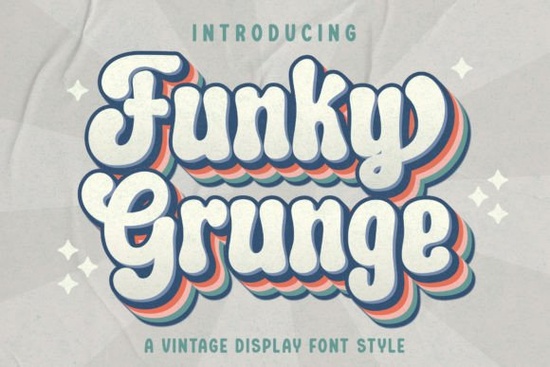
If you've been searching for a typeface that brings gritty, retro character to your projects, Funky Grunge Font is worth a close look. It's a vintage-style display font designed to give your work that worn, textured feel without any extra editing. Whether you're building a brand identity, designing a poster, or creating social media graphics, this font delivers personality right out of the box.
Below, I'll walk you through what makes this font useful, where it works best, and how to pair it with other typefaces for a polished result.
What Makes Funky Grunge a Good Display Font?
Display fonts are meant to grab attention, and Funky Grunge does that through texture and style. The letters have a slightly distressed, uneven look that mimics old printing or hand-painted signage. This gives designs an authentic vintage mood that clean, modern fonts simply can't replicate.
Here's what stands out about it:
- Retro character The grunge texture feels organic, not computer-generated.
- Versatile sizing It reads well at large sizes on posters and at medium sizes on packaging.
- Complete character set Includes uppercase, lowercase, numbers, and common punctuation.
- Works for digital and print Suitable for screen designs and physical products alike.
Where Can You Use This Font?
The retro grunge style fits a surprisingly wide range of projects. Designers and small business owners reach for fonts like this when they want to stand out from polished, corporate-looking type.
Common uses include:
- Logo design Especially for brands with an indie, streetwear, or handmade aesthetic.
- Social media posts Bold display type catches the eye in fast-scrolling feeds.
- Wedding invitations Pairs well with rustic, boho, or vintage-themed stationery.
- Print-on-demand products T-shirts, mugs, and posters benefit from textured typography.
- Event flyers and posters Concerts, markets, and pop-up events love a grungy headline.
- Packaging and labels Works nicely for craft beer, artisan goods, or specialty food brands.
If you create products on platforms like Redbubble, Merch by Amazon, or Etsy, a font like this can help your designs feel more handmade and distinctive.
How Does It Compare to Other Display Fonts?
There's no shortage of display fonts on Creative Fabrica, so how does Funky Grunge hold up? It fills a specific niche vintage grit that other styles don't cover. Here's how it compares to a few other popular options:
- Creative Vintage Font Shares the retro vibe but leans more toward classic elegance than raw texture.
- Real Wavy Stacked Font A bold, layered display font ideal for headlines that need height and drama.
- Selina Daniel Duo Font A pairing of serif and script styles, better suited for feminine or editorial layouts.
- Marshmellow Font A softer, rounded typeface with a playful feel the opposite of grunge.
- Rainbow Darling Duo Font Combines a fun display style with a complementary script, great for cheerful designs.
Each of these fonts has its own personality. Funky Grunge is the right pick when your project needs rough edges and a worn-in feel rather than clean lines or playful curves.
Tips for Pairing Funky Grunge With Other Fonts
A textured display font works best when balanced with a simpler companion. Here are a few pairing ideas:
- Body text: Use a clean sans-serif like Montserrat or Open Sans so the grunge headline doesn't compete with readable paragraphs.
- Subheadings: A light or medium-weight sans-serif keeps the hierarchy clear.
- Accent text: A simple script font can add contrast without overwhelming the design.
The general rule is: the more texture your headline has, the cleaner everything else should be.
Is This Font Right for Your Project?
Ask yourself these questions:
- Does your brand or design aim for a vintage, edgy, or handmade look?
- Do you need a headline font that stands out without being overly decorative?
- Are you working on print-on-demand, posters, or social media content?
If you answered yes to any of those, Funky Grunge is a solid choice. It won't work for every project a law firm's website or a medical brochure would need something more restrained but for the right creative context, it's exactly the kind of typeface that makes a design feel alive.